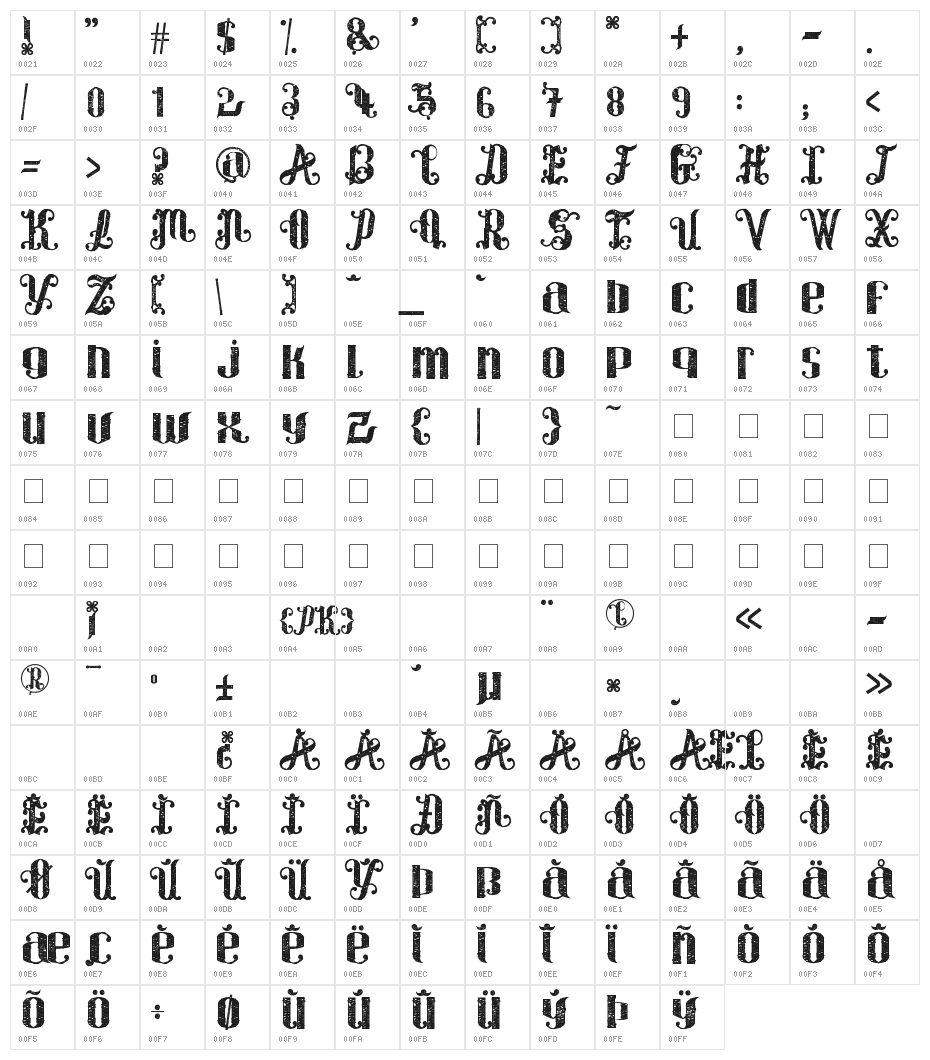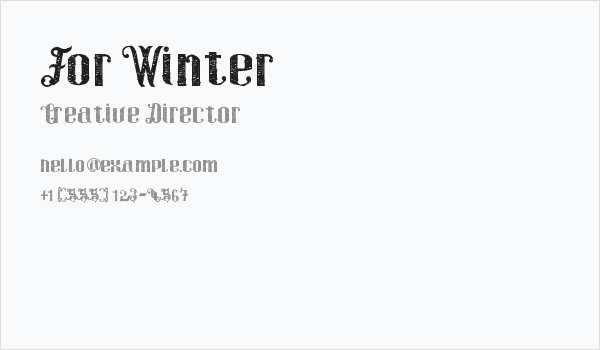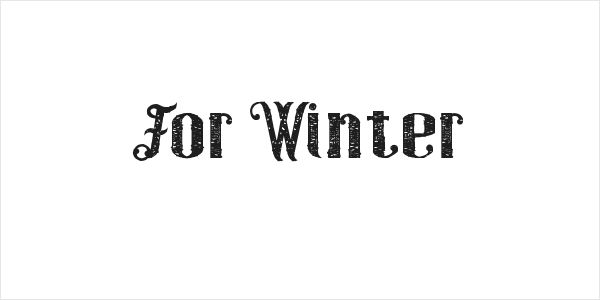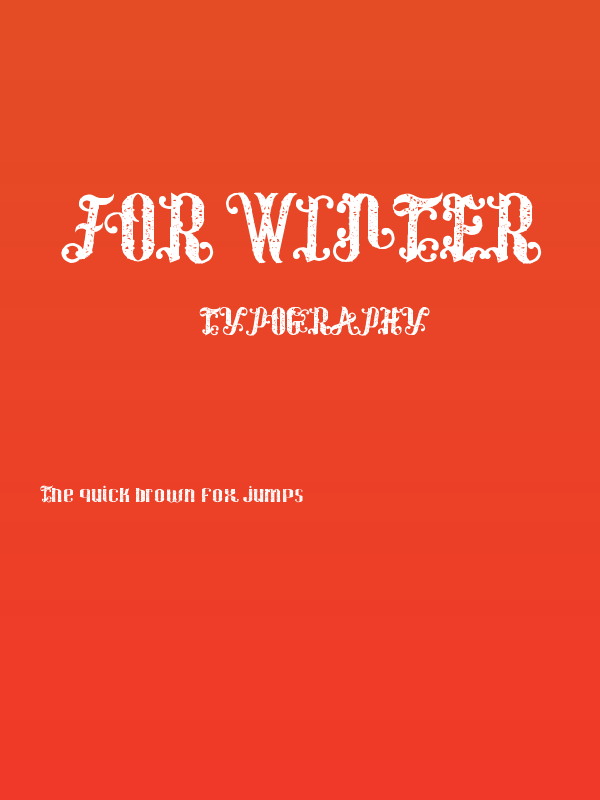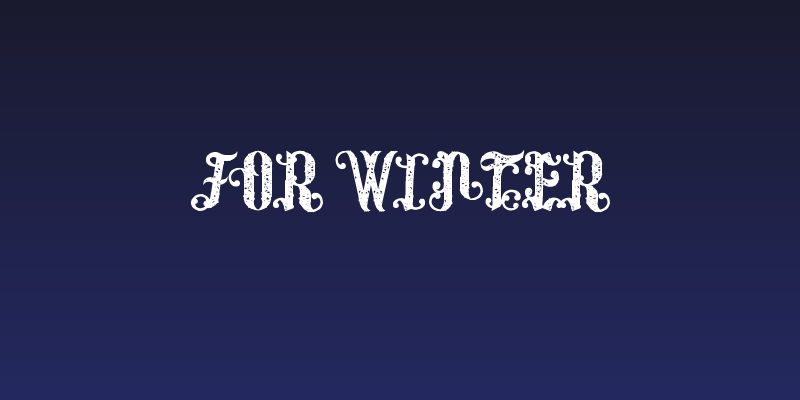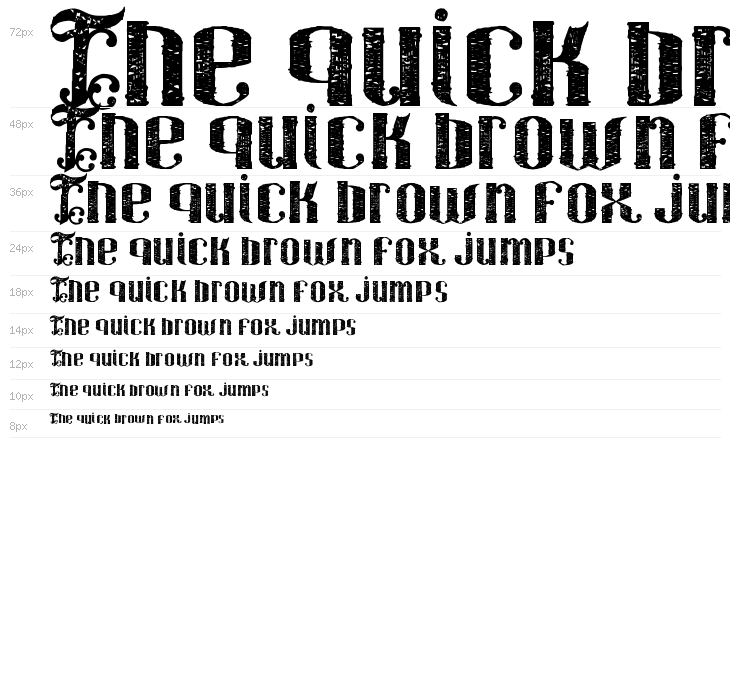
For Winter Font
For Winter Description
This font features an ornate and decorative style with intricate swirls and flourishes that give it a vintage and artistic appearance. The characters are bold and heavily stylized, with a distressed texture that adds a rustic and aged feel. The uppercase and lowercase letters maintain a consistent design theme, with each character exhibiting unique embellishments that enhance its visual appeal. The numerals and special characters are equally detailed, making them stand out with their elaborate design. This font is ideal for projects that require a touch of elegance and historical charm.
| Use Case | Headlines, Logos, Decorative text |
| Proposed Projects | Ideal for vintage-themed posters, invitations, branding, and decorative signage. |